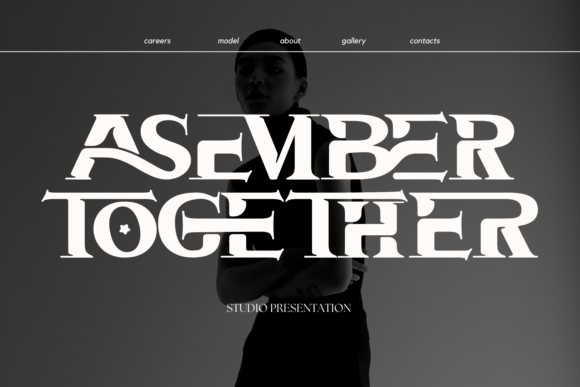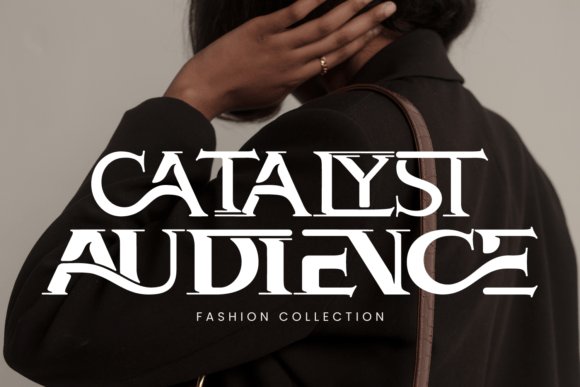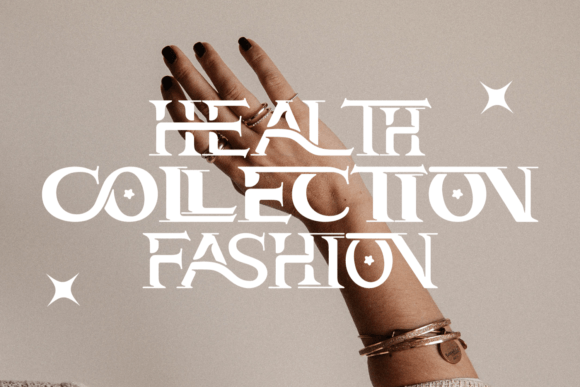
Changes Together Font
Changes Together is a bold and assertive serif font. No matter the topic, this font will be an incredible asset to your fonts' library, as it has the potential to elevate any creation.